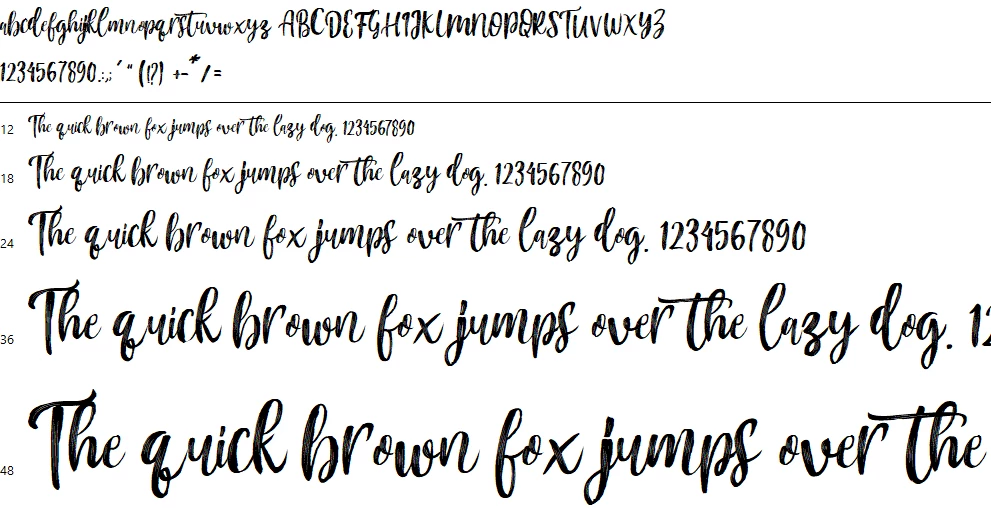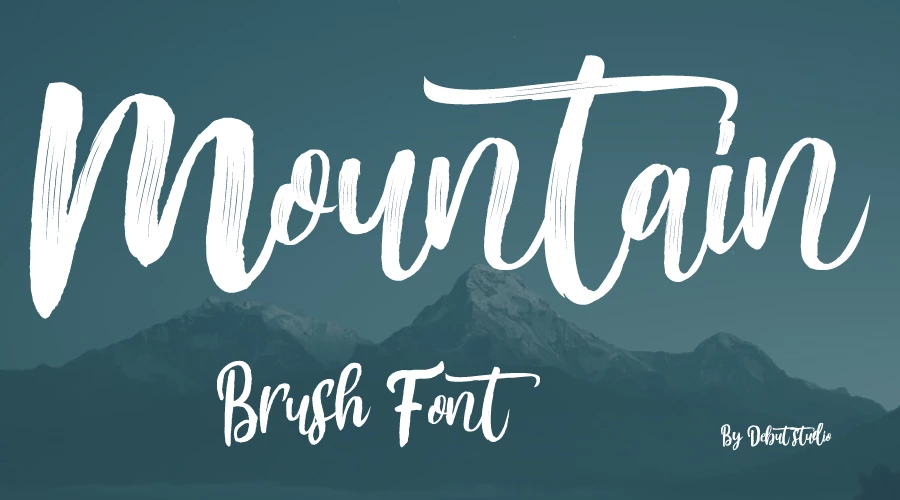
Hello there, pal! A fantastic brush and script font is here named Mountain Brush Font. It’s a natural, handmade, contemporary approach to design. The font was created by the debut studio and published by them. Multilingual support, standard ligatures, and various stylistics are just a few of the font’s beautiful features. If you enjoy designing t-shirts, you should give this font a try because it is an excellent alternative for creating.
This font is excellent for logos, t-shirts, headings, magazines, newspapers, websites, quotations, posters, and business cards, among other things. The typeface is ideal for individuals looking for a beautiful font for their vacation vlogs because it fits all types of travel vlogs.
NameMountain Brush Font
StyleScript
DesignerDebut studio